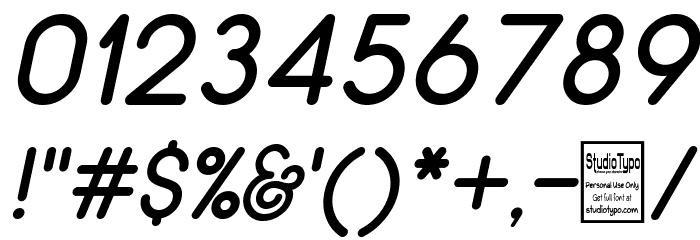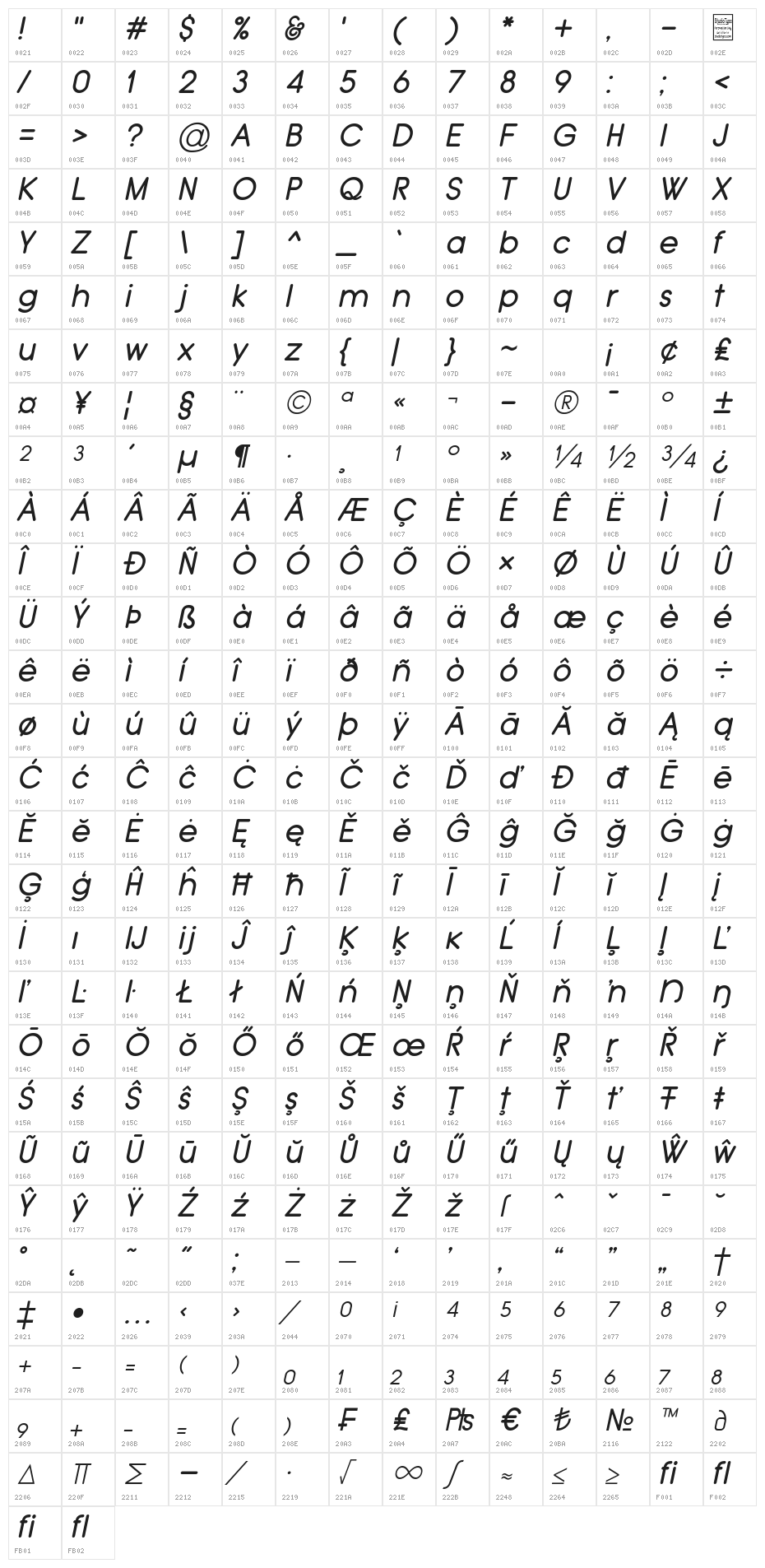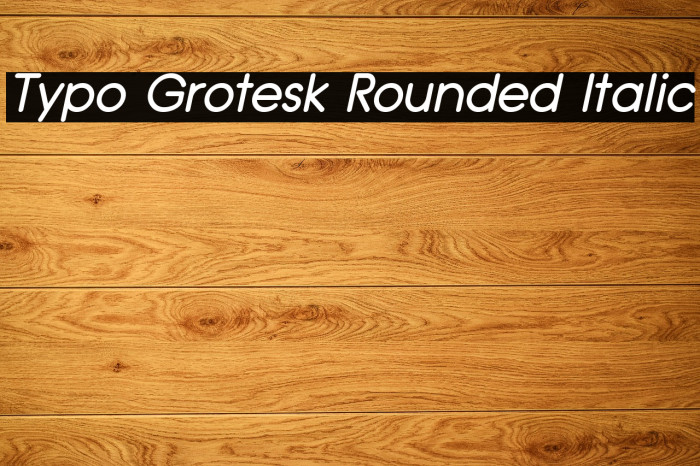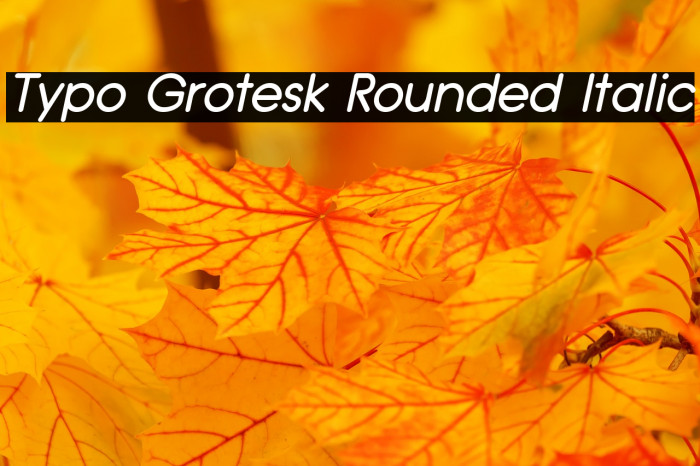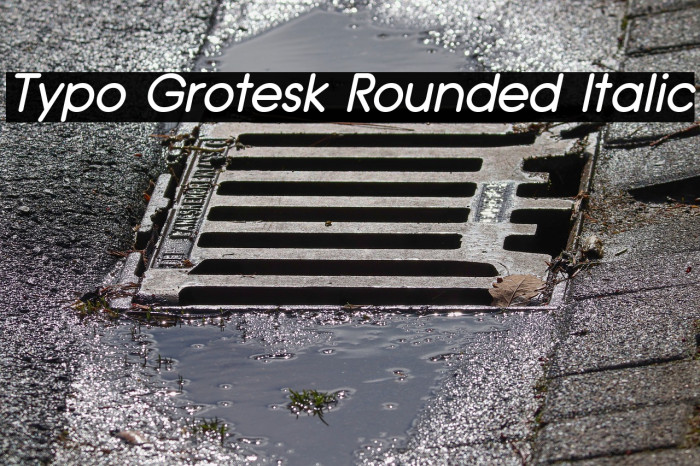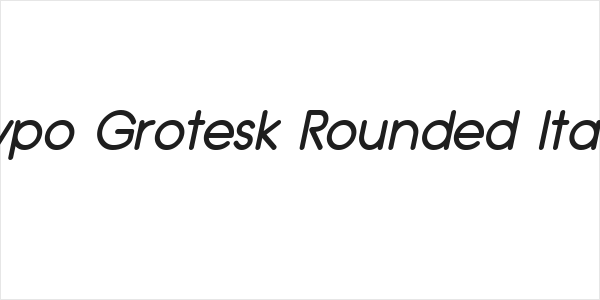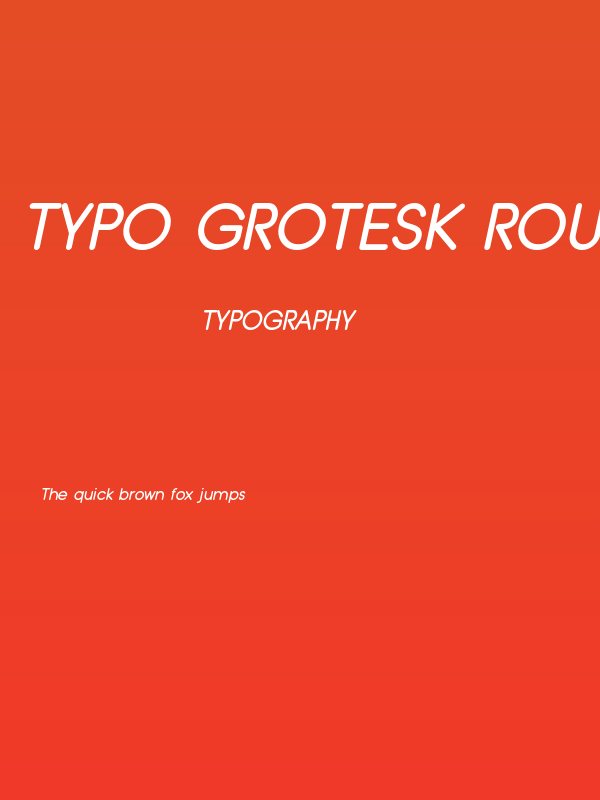
Typo Grotesk Rounded Italic Font
Typo Grotesk Rounded Italic Description
This font features a clean and modern design with rounded edges that give it a friendly and approachable appearance. The italic style adds a dynamic and fluid touch, making it suitable for a variety of creative applications. The characters are evenly spaced, ensuring readability while maintaining a sleek and streamlined look. The font includes a full set of uppercase and lowercase letters, numbers, and a variety of special characters, making it versatile for different uses. Its smooth curves and consistent line weight contribute to its contemporary aesthetic.
| Use Case | Headlines, Logos, Digital Media |
| Proposed Projects | Ideal for branding projects, advertising, packaging design, and digital media where a modern and approachable look is desired. |